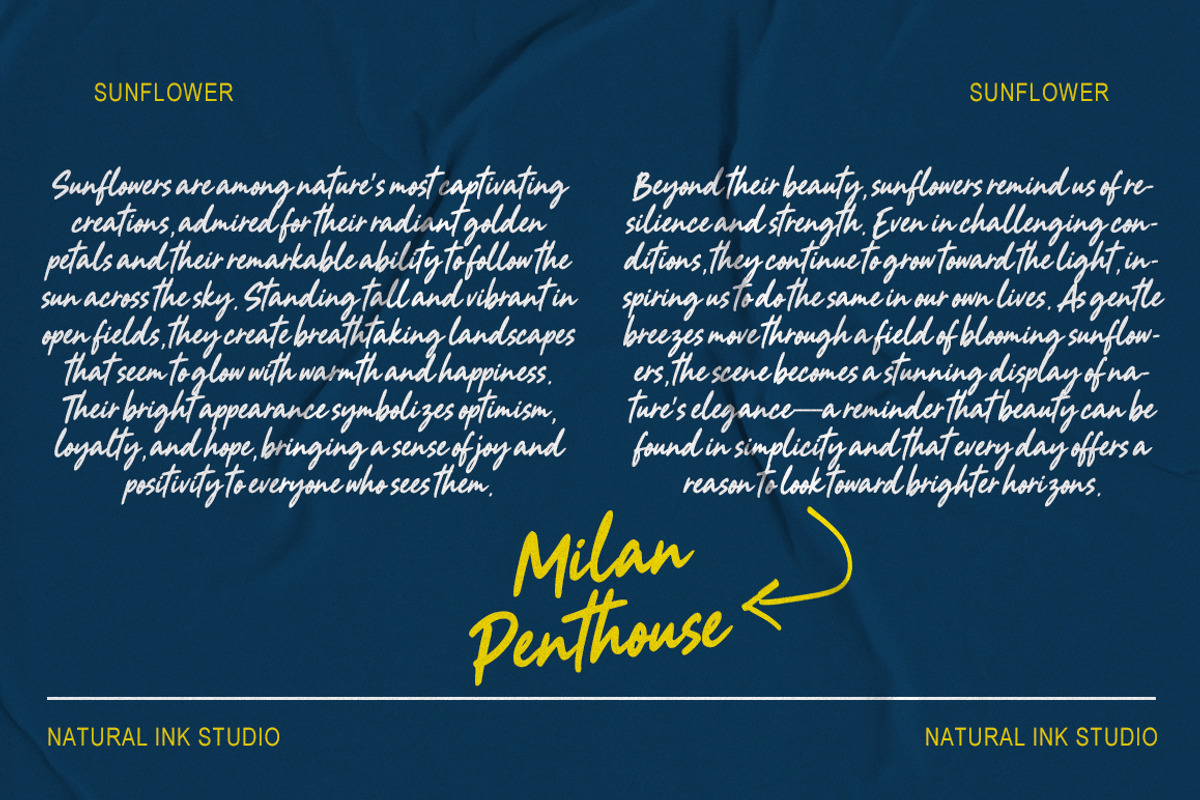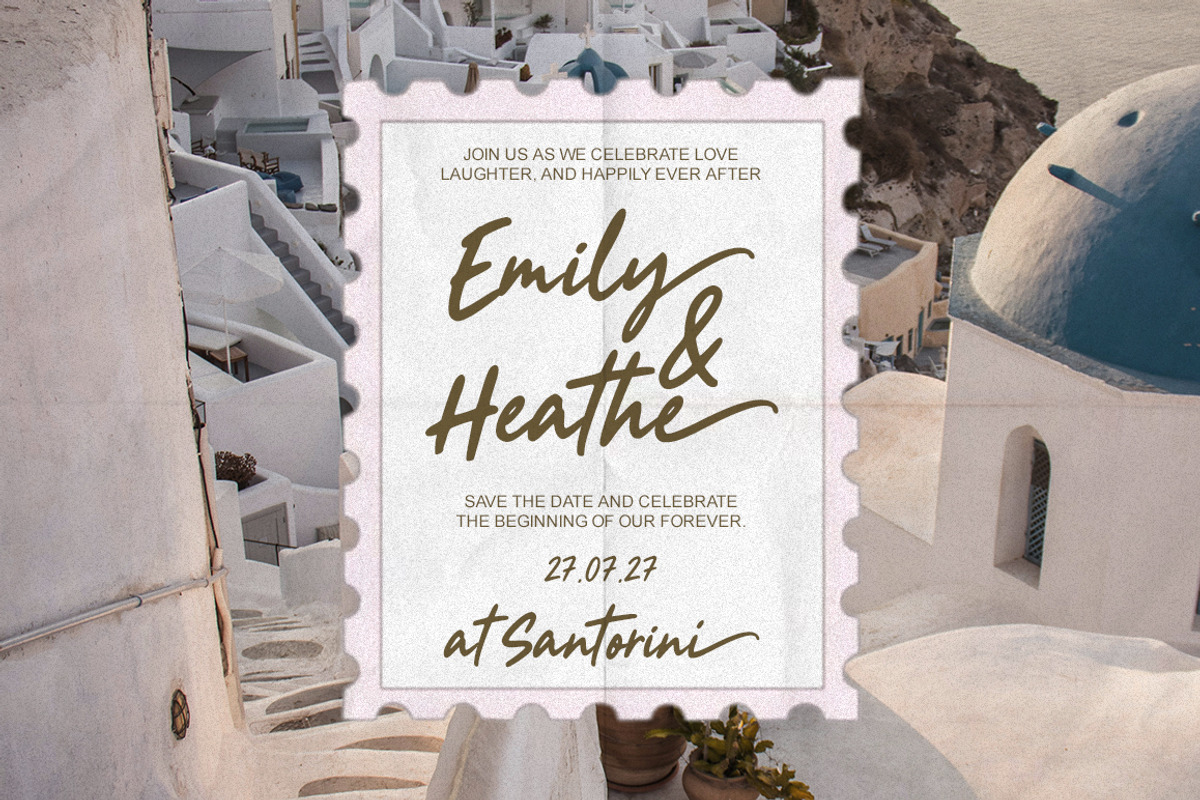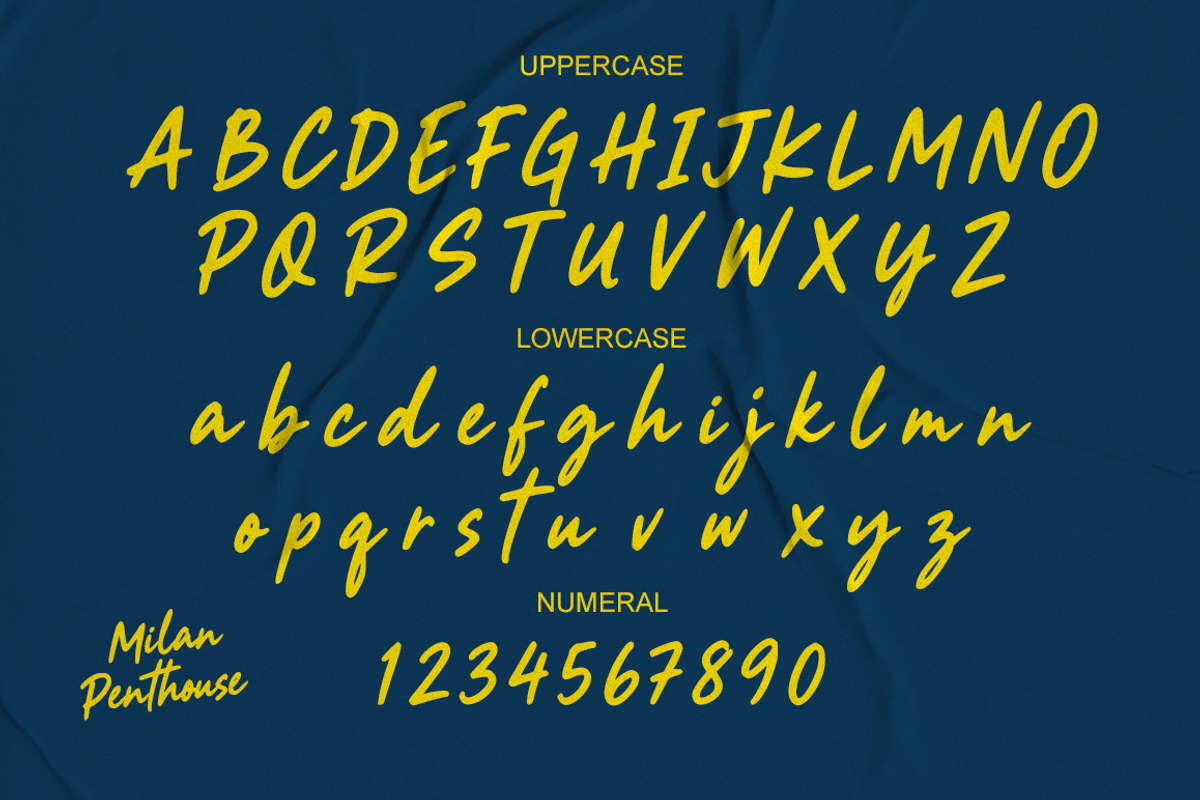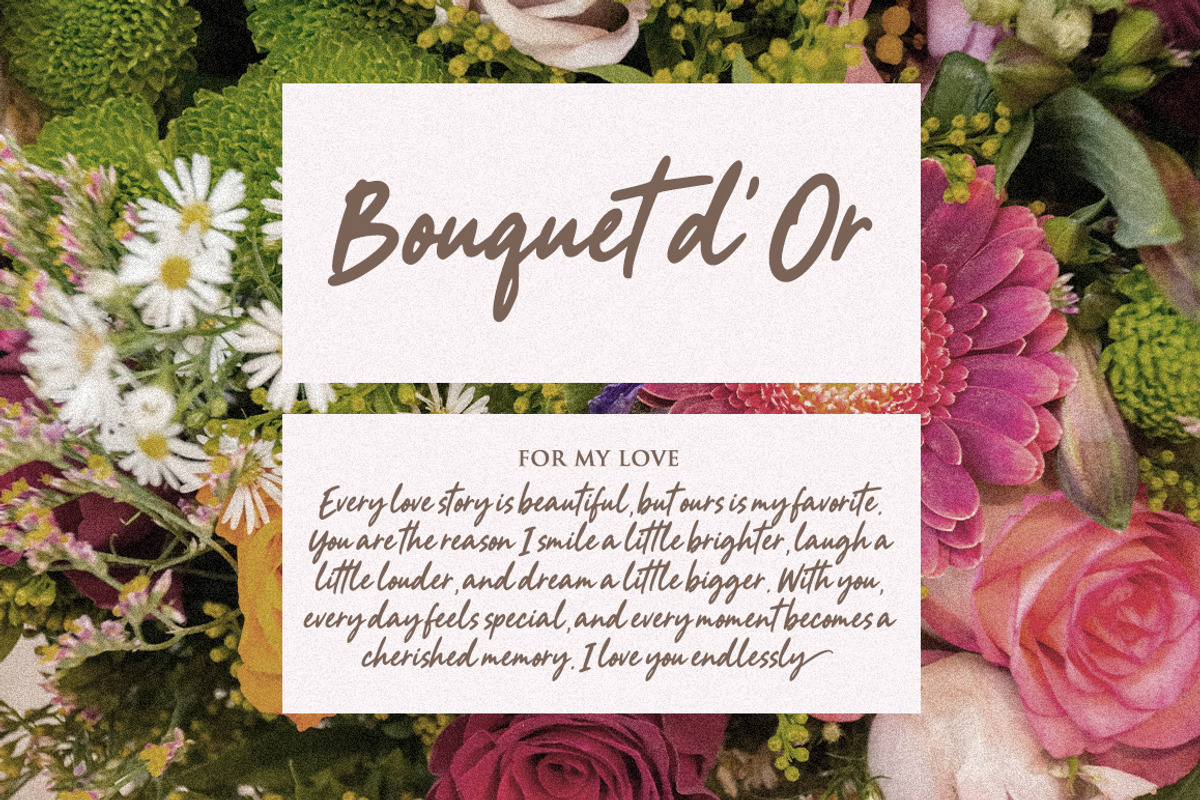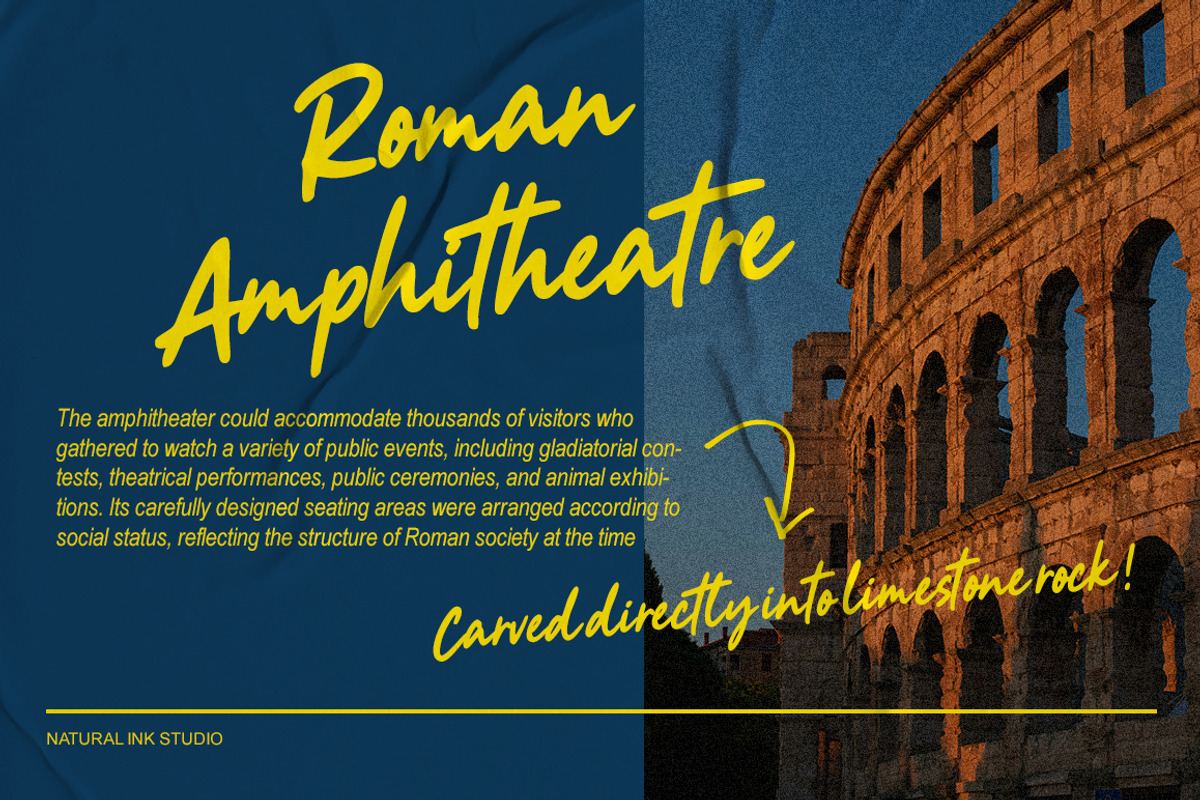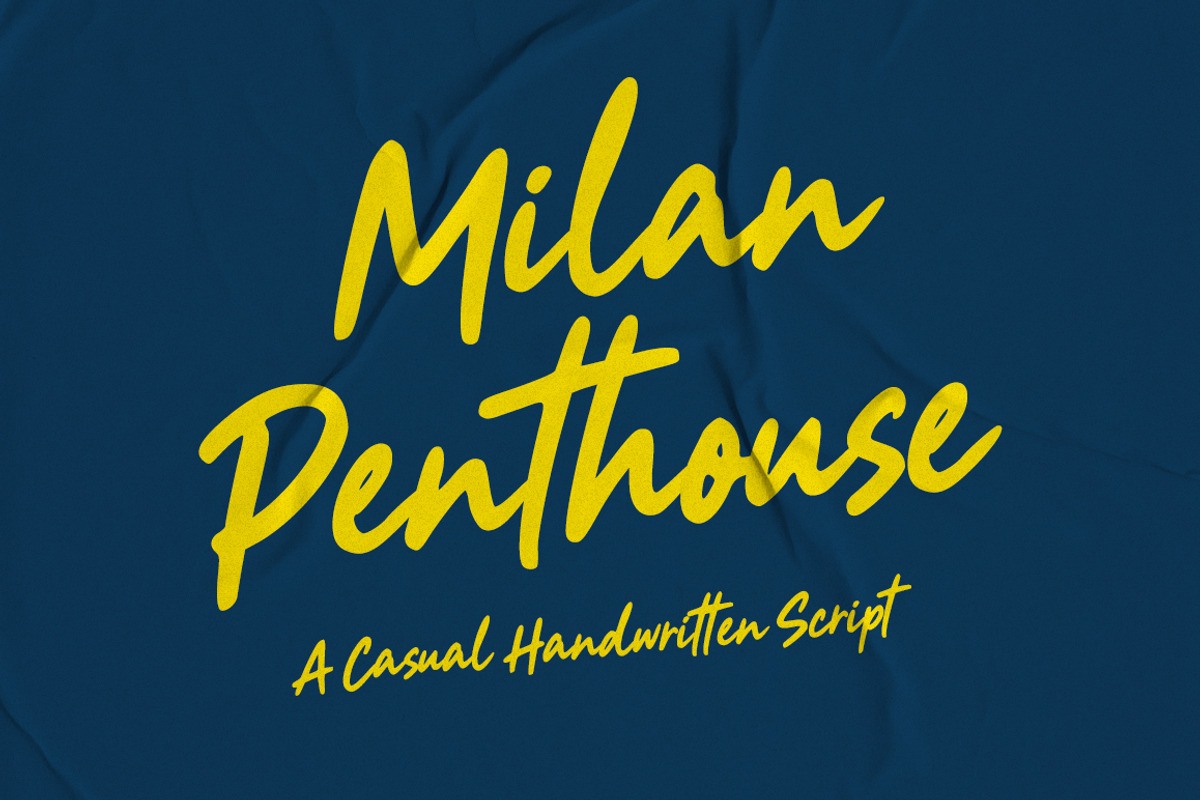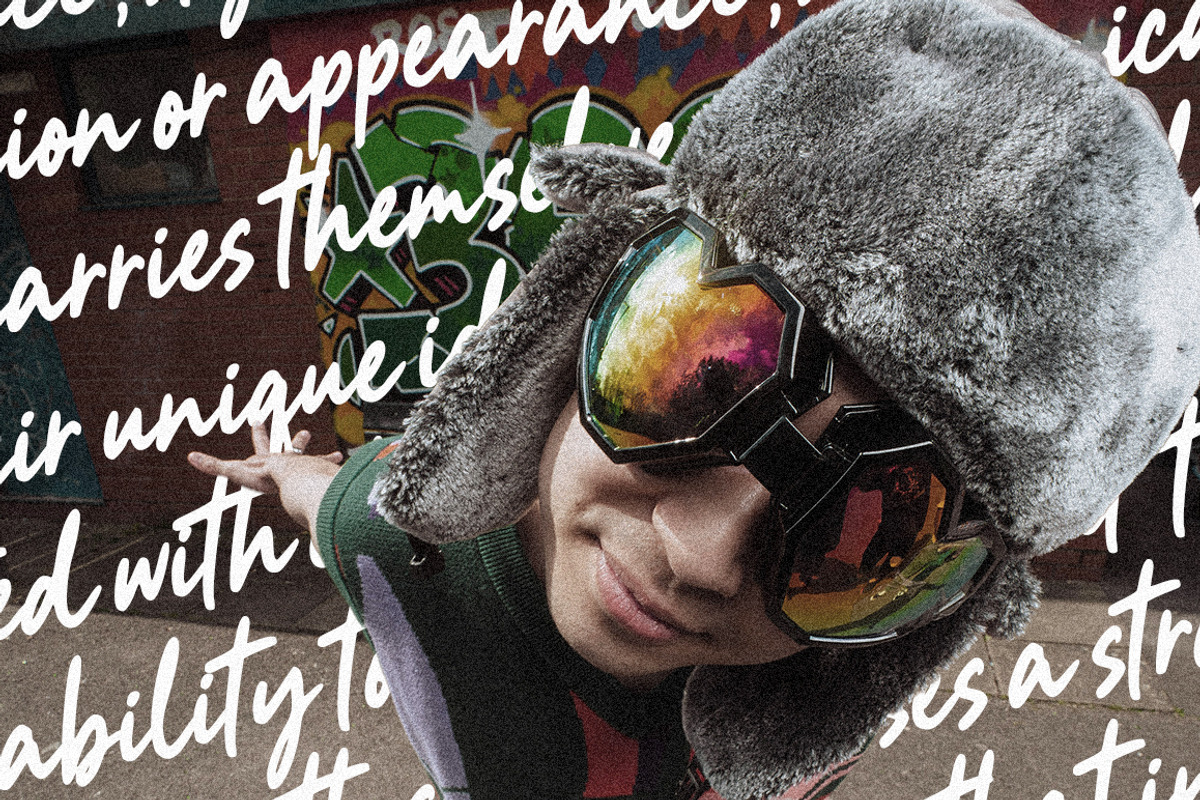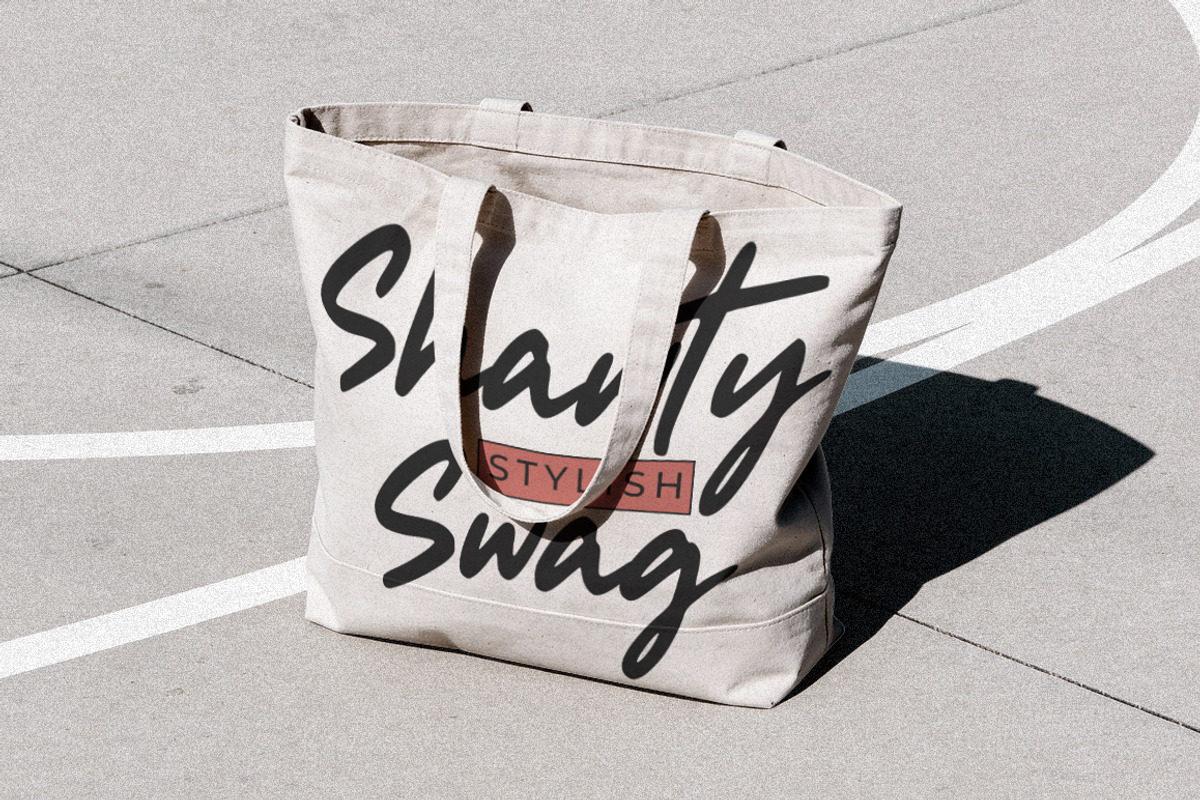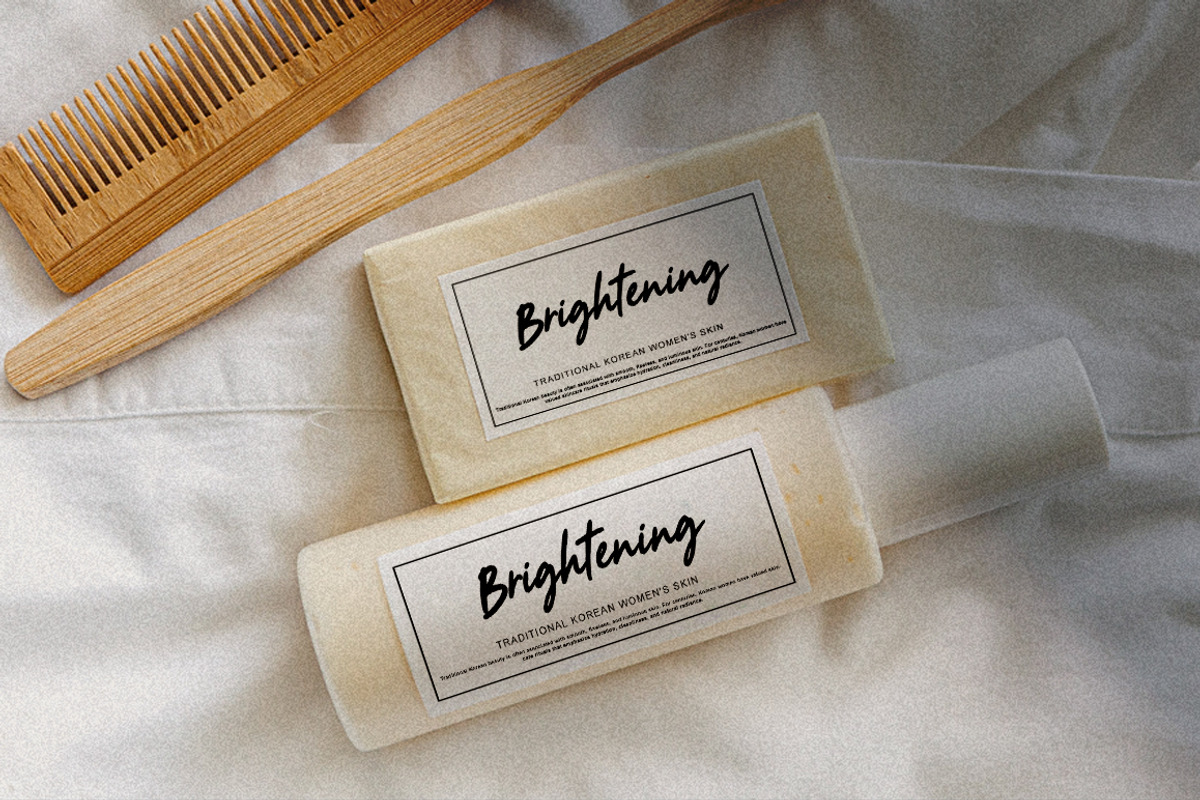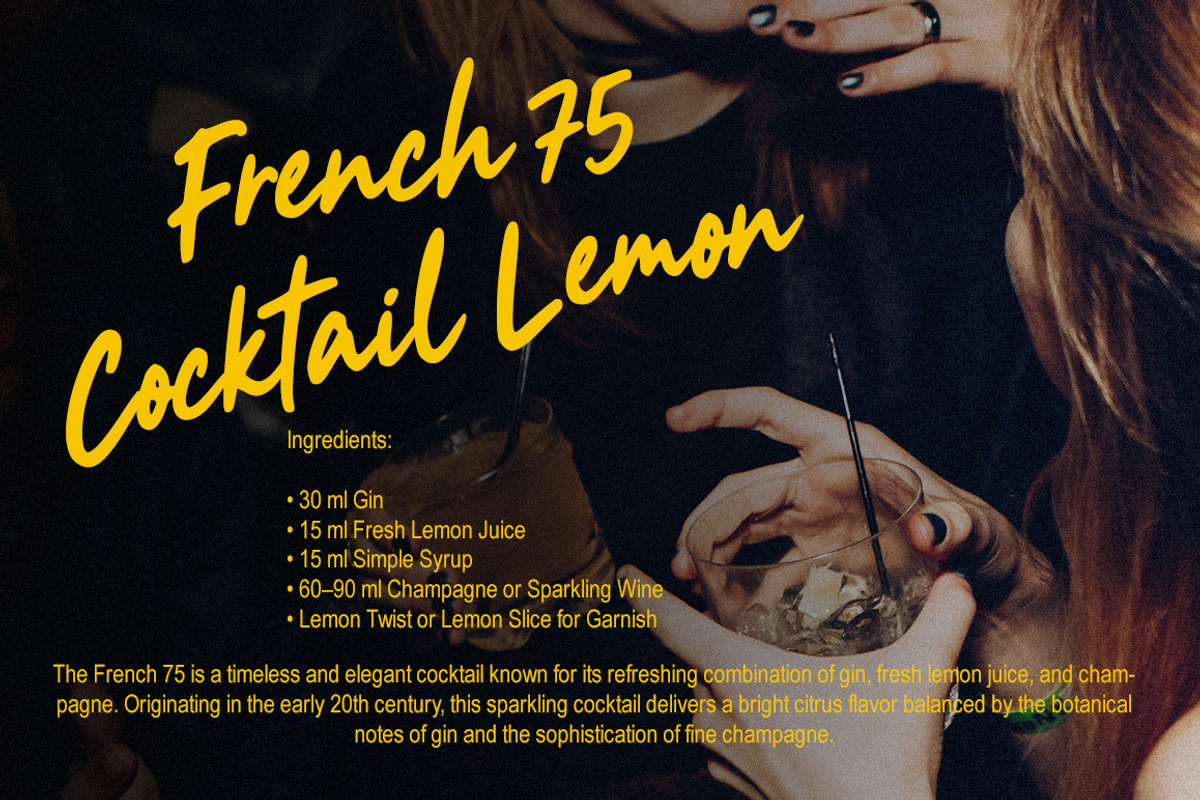
Milan Penthouse
Milan Penthouse is a unique handwritten typeface that captures the perfect balance between modern sophistication and natural handwritten charm. Designed with flowing strokes, refined curves, and distinctive letterforms, this font brings an exclusive and contemporary feel to every design project. Its stylish character makes it ideal for luxury branding, fashion editorials, boutique packaging, beauty products, social media content, wedding stationery, and premium logo designs.
Crafted with attention to detail, Milan Penthouse offers a smooth and authentic handwritten appearance while maintaining excellent readability and versatility. The elegant rhythm of each letter creates a sense of confidence, creativity, and modern luxury, making it suitable for both professional and artistic applications. Whether used for striking headlines, signature style logos, or sophisticated marketing materials, Milan Penthouse delivers a memorable visual presence that elevates any project with effortless style and contemporary elegance.
Perfect for: Branding, Logos, Fashion Labels, Editorial Design, Wedding Invitations, Packaging, Social Media Graphics, Luxury Products, and Creative Projects.